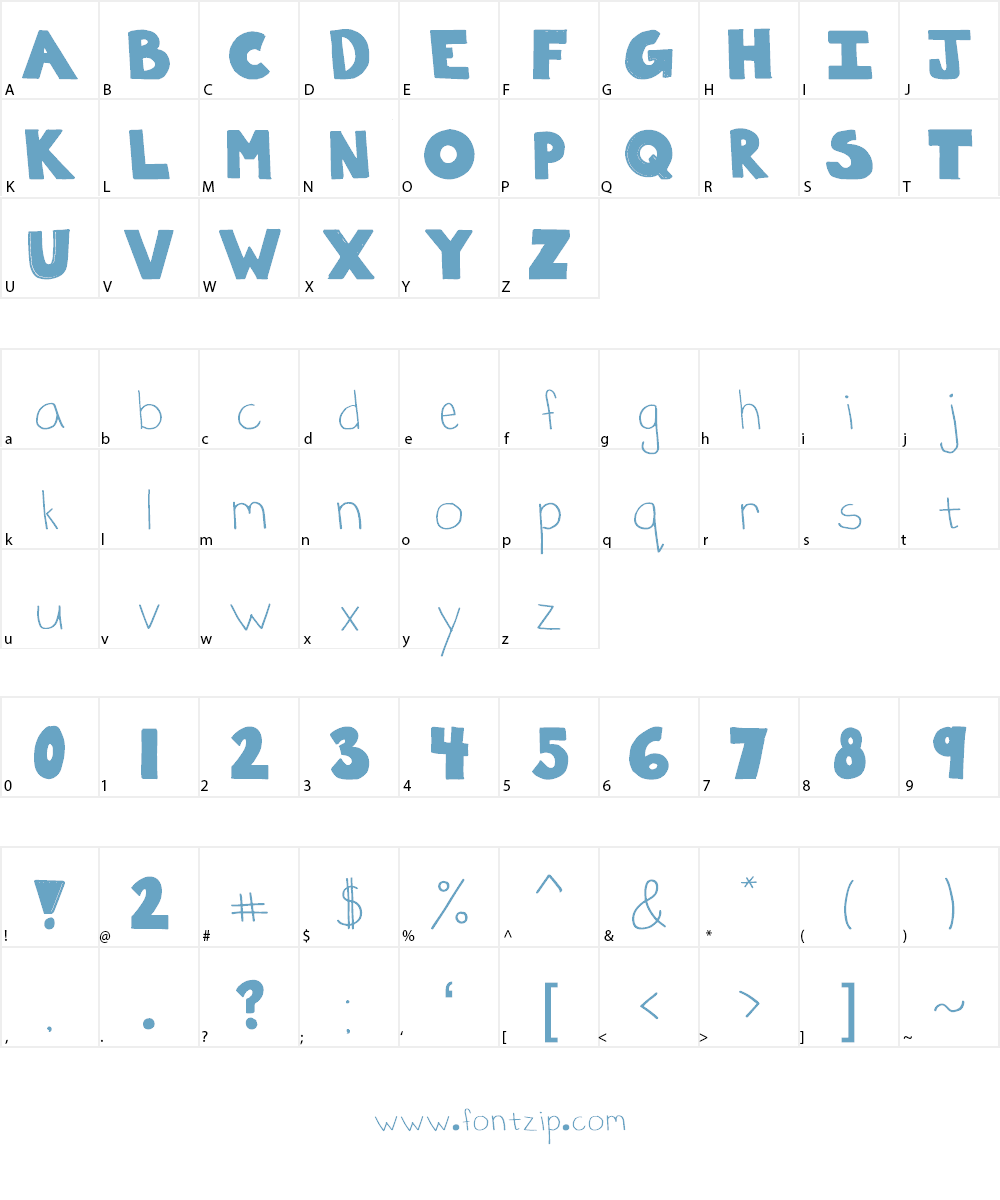
This is a cool new type of font called "Color Font!" That means in some of the more artsy applications you can change the inside color of the uppercases, punctuation, and numbers in my font. If not using one of these artsy applications the font will show up just as the preview shows on this website.